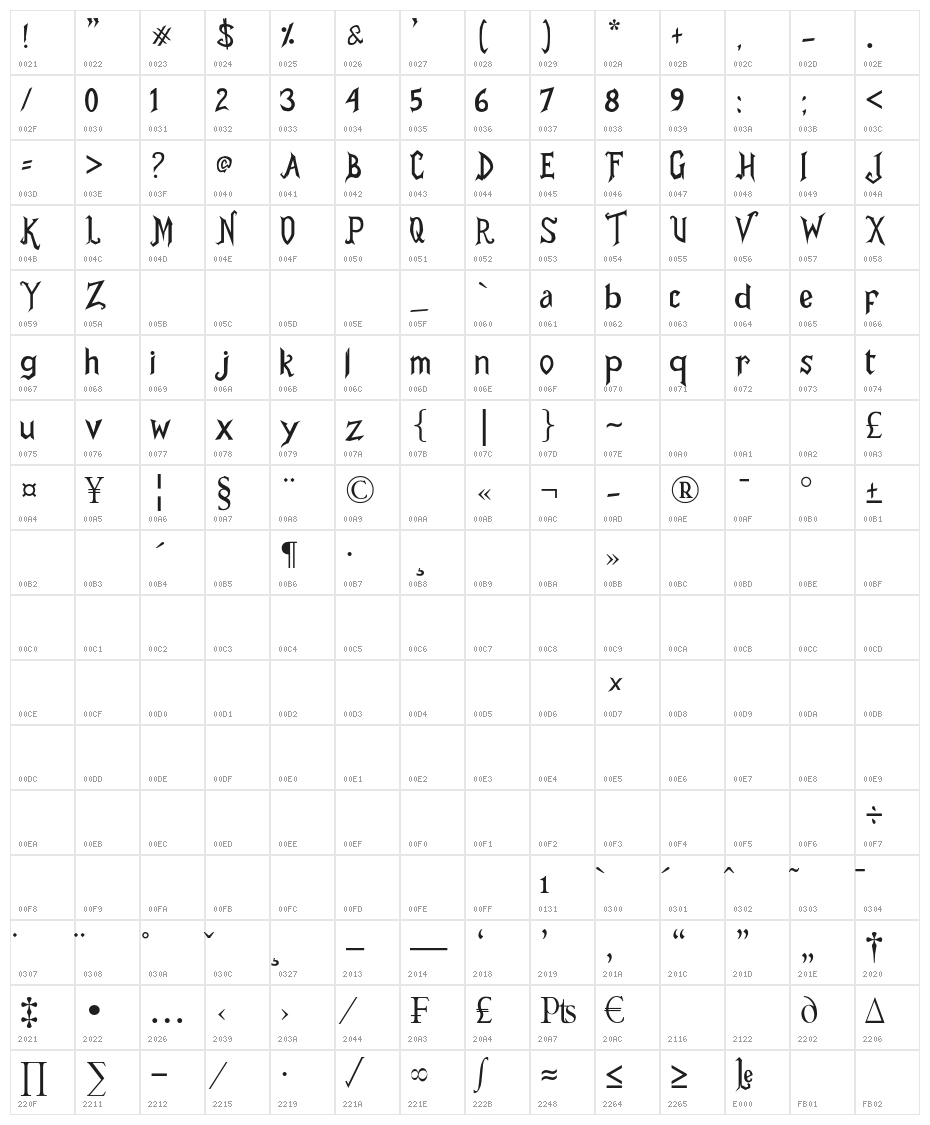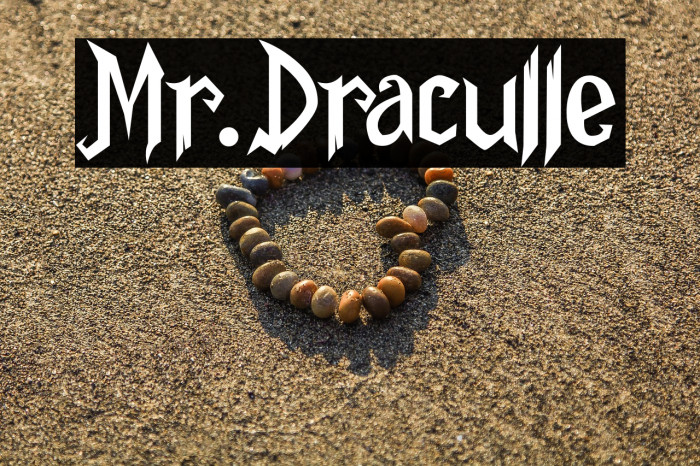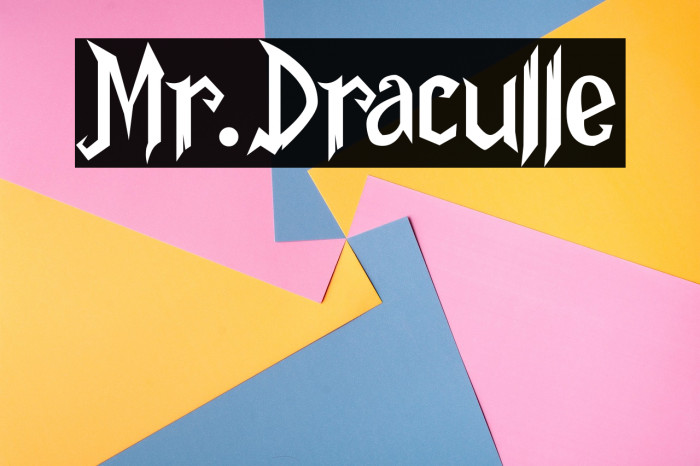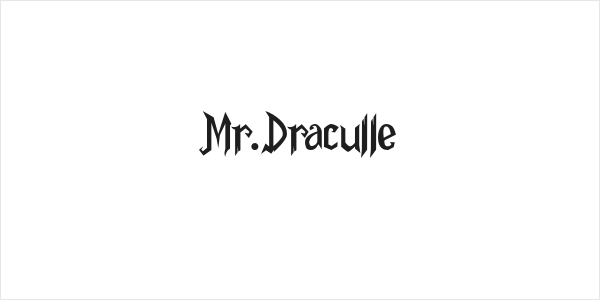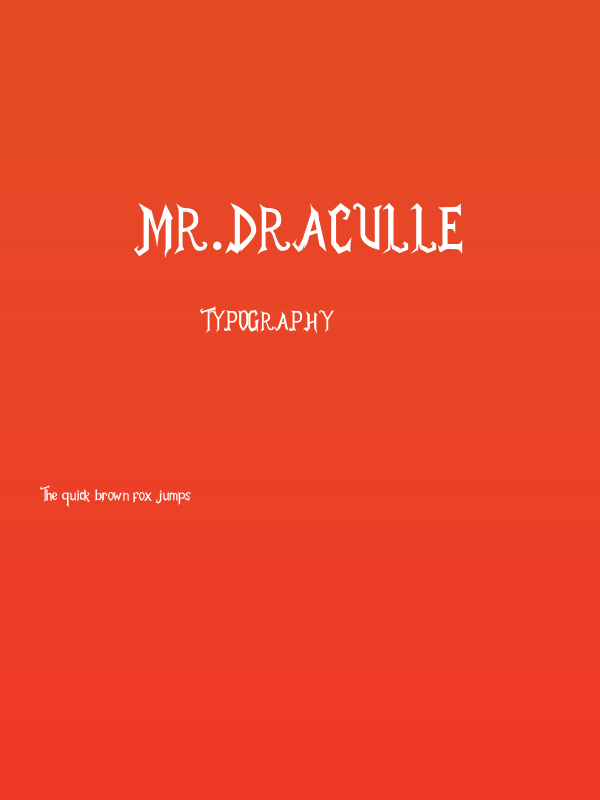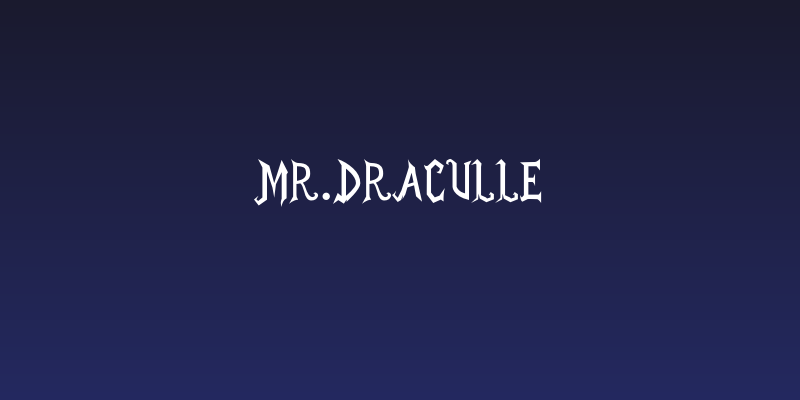
Mr.Draculle Font
This font features a dramatic and gothic style, characterized by sharp, angular lines and pointed serifs. The uppercase letters exhibit a strong presence with their tall, narrow forms and intricate detailing, reminiscent of medieval script. The lowercase letters maintain a consistent style, with a slightly more rounded appearance that complements the uppercase set. Numbers are bold and clear, maintaining the same gothic aesthetic. Special characters are designed with unique flair, adding to the overall dramatic effect. This font is ideal for creating a mysterious or eerie atmosphere, making it perfect for themed projects.
| Overall Style | Gothic, Dramatic |
| Proposed Projects | Ideal for horror-themed designs, Halloween invitations, gothic posters, and fantasy book covers. |